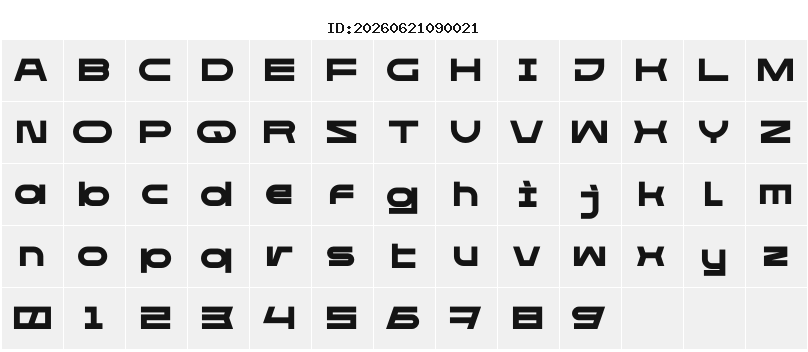
• Font Name: Polonium
• Full Font Name: Polonium Bold
• Designer: Alexey Atapin
About Polonium.otf
Polonium.otf is a modern, elegant sans-serif font designed for ultimate readability and visual harmony. Perfect for branding, headlines, web design, and print materials.